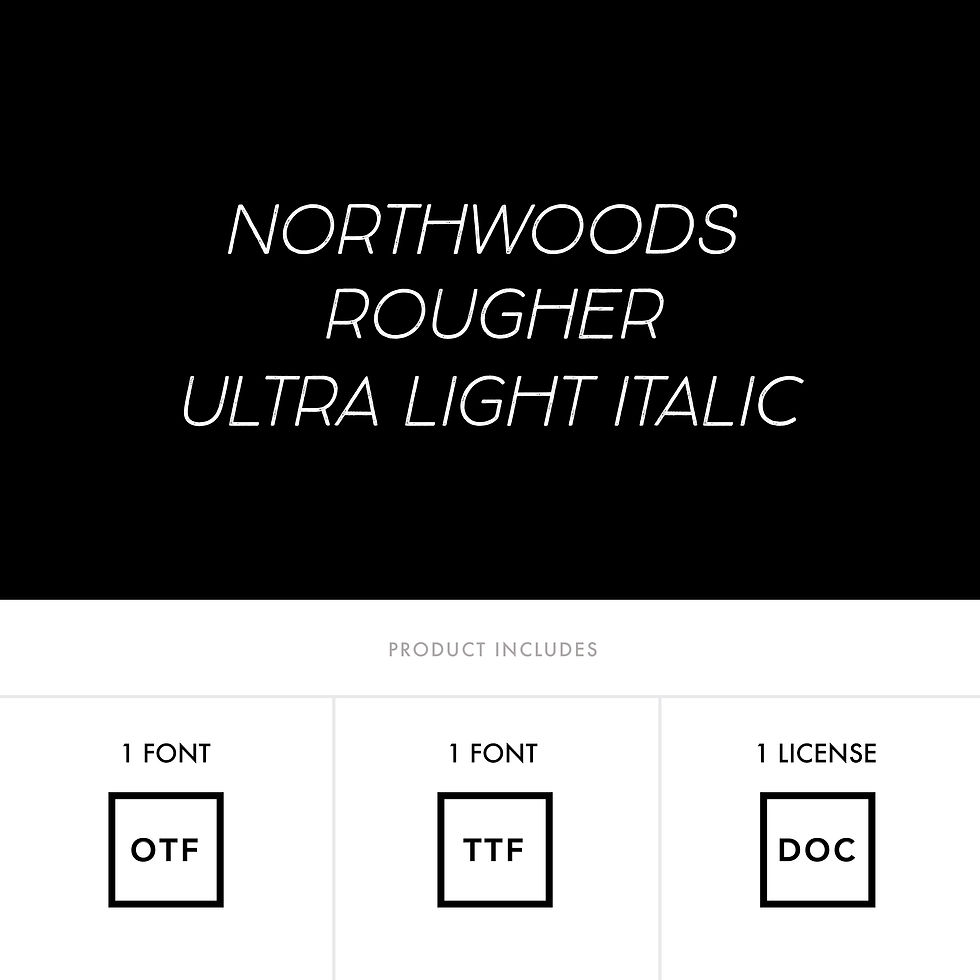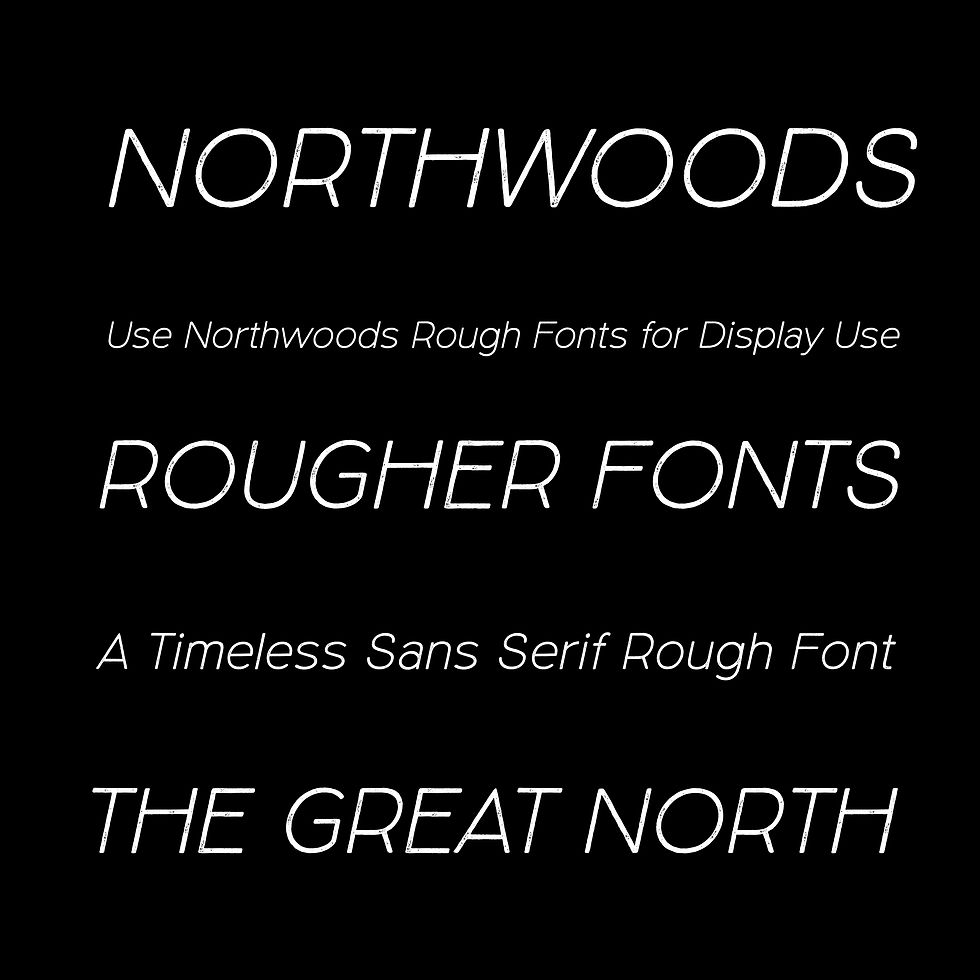
NORTHWOODS ROUGHER ULTRA LIGHT ITALIC FONT is an italic, distressed, handwritten, sans serif headline font with capital and lowercase letters. Northwoods Rough comes with latin pro characters.
Use Northwoods Rougher for packaging, magazines, layouts, web design, corporate identity and marketing.
Northwoods Rougher Ultra Light Italic Font